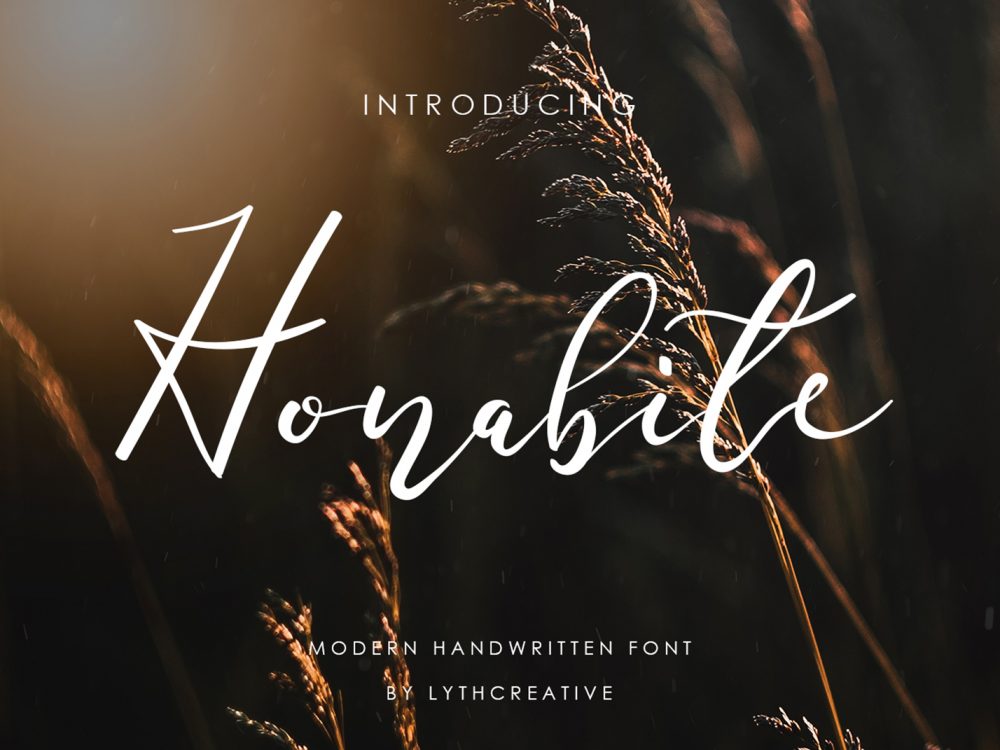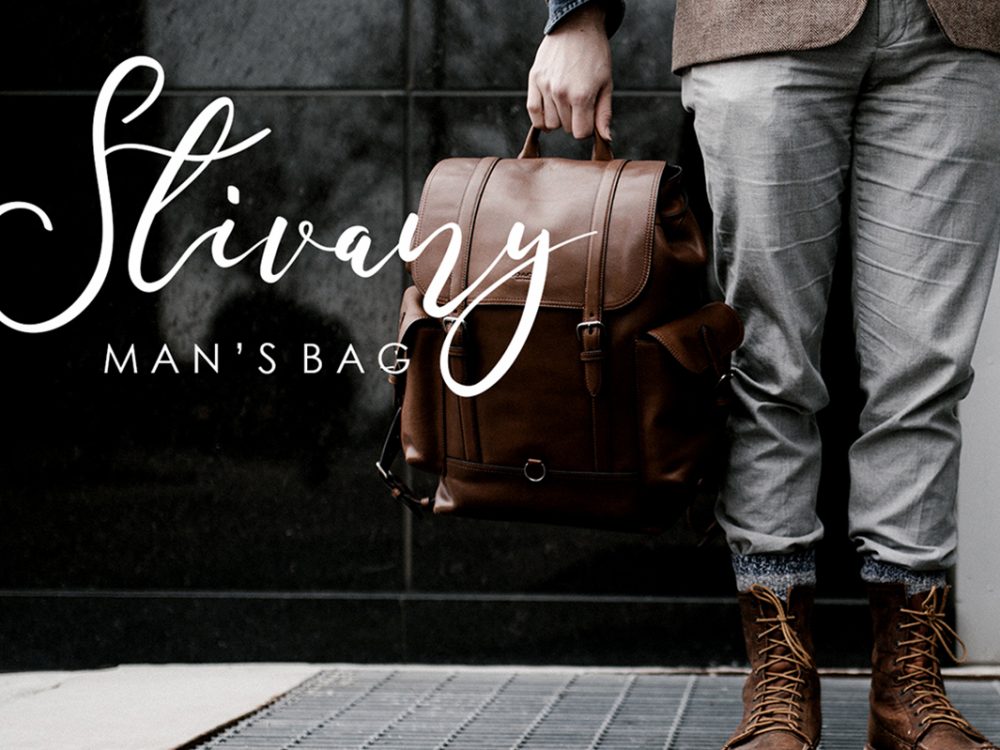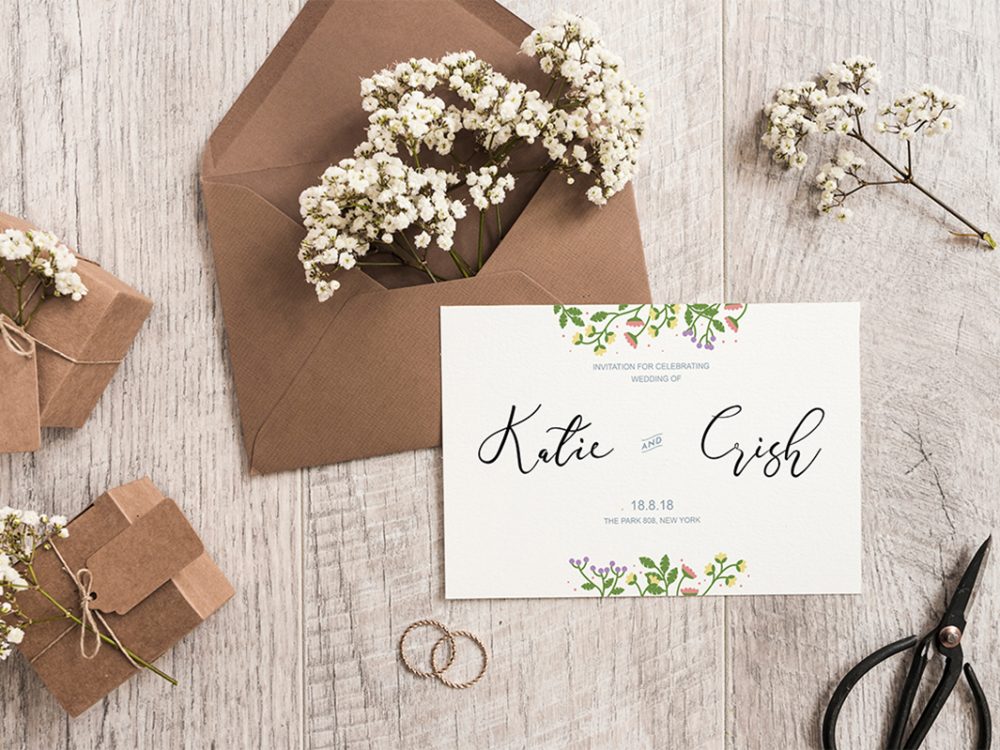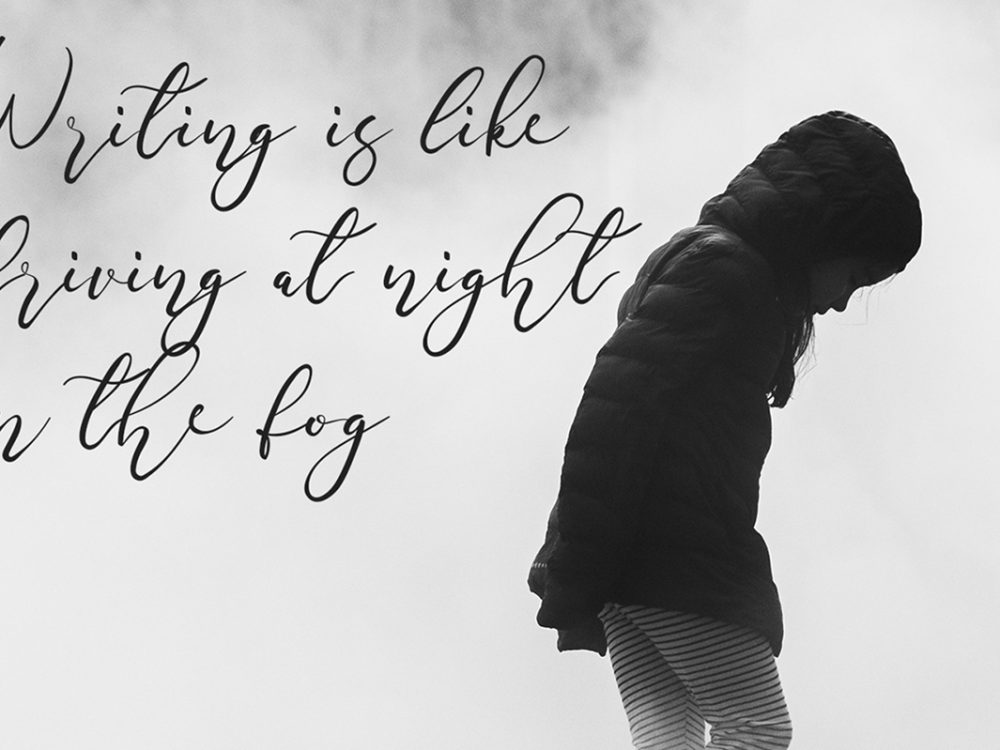
Honabite Free Font
Honabite Free Font is a calligraphic font that has a unique style and interesting style. This font is well suited for a variety of design projects that require a scripted handwritten font. You can use this font to create memorable romantic posters, product packaging, product designs, labels, photography, watermarks, wedding invitations, greeting cards, branding, flyers, t-shirt and pillow prints, and more. If you like it don’t forget to check out the full version.